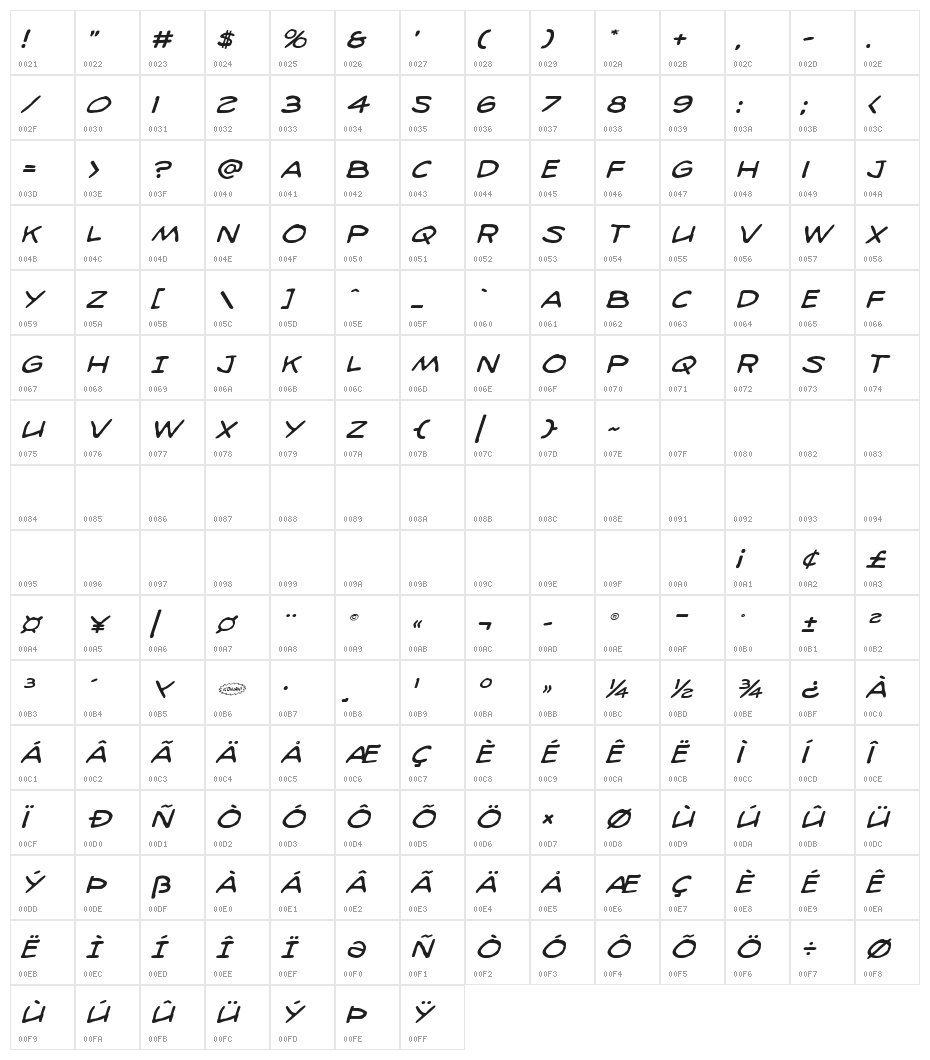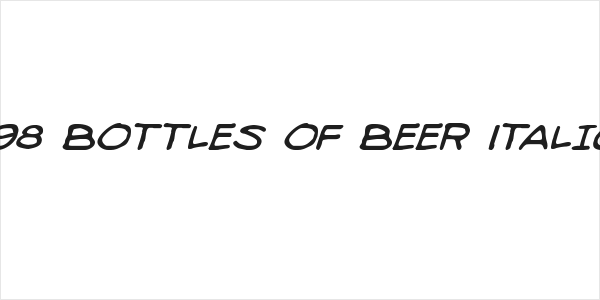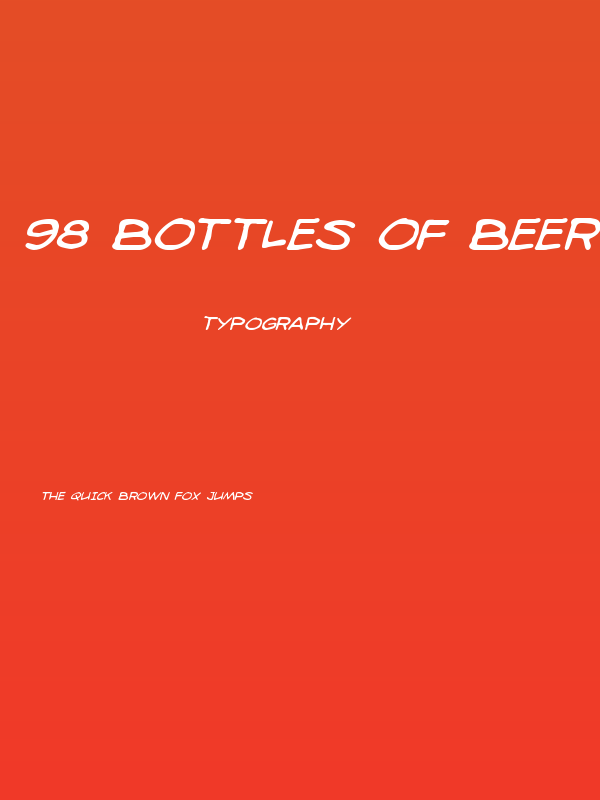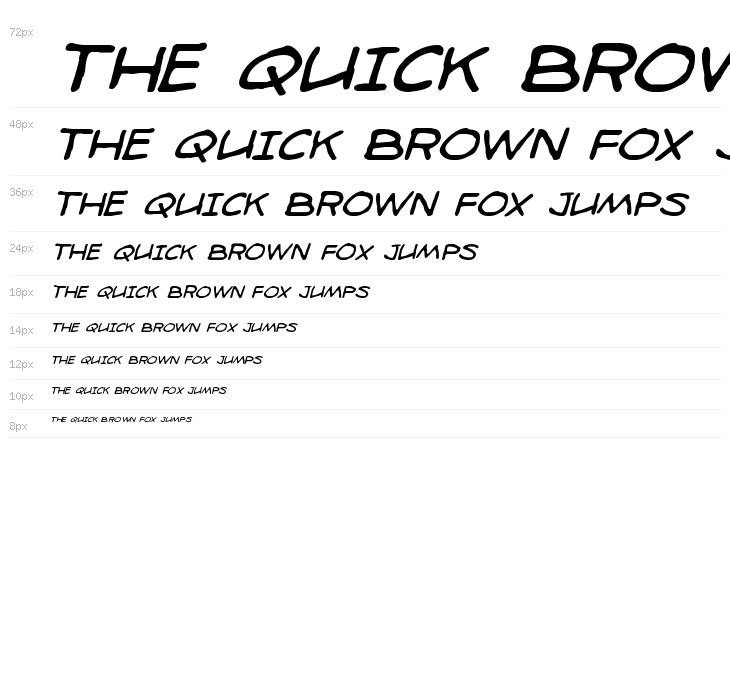
98 Bottles of Beer Italic Font
98 Bottles of Beer Italic Description
This font presents a dynamic and energetic style with a handwritten appearance. The characters are slightly slanted, giving an italicized effect that enhances its casual and informal look. The strokes are bold and rounded, providing a sense of friendliness and approachability. The uppercase and lowercase letters maintain a consistent flow, while the numerals and special characters integrate seamlessly, ensuring readability. The overall design is playful yet legible, making it suitable for various creative applications.
| Proposed Projects | Ideal for greeting cards, playful branding, children's books, and casual invitations. |